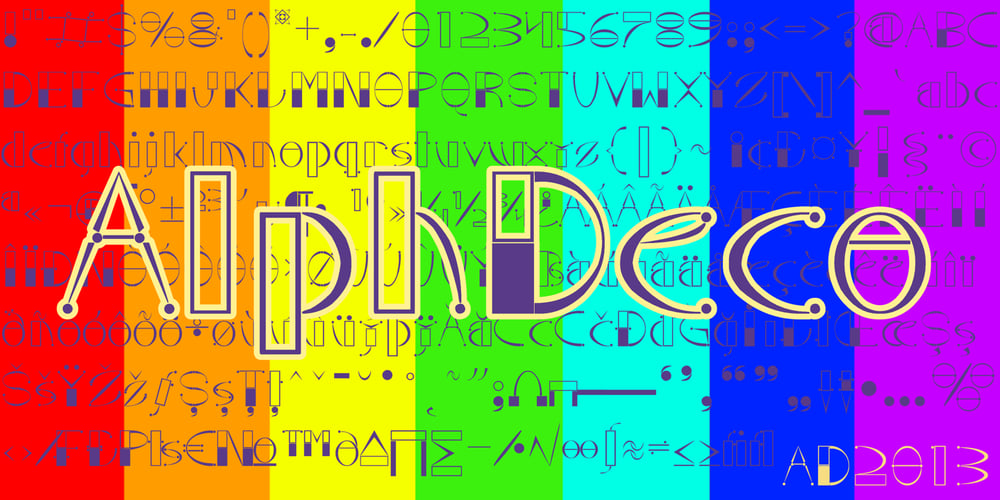
Alph Deco Font Family was designed by Heikki Morgan Hämäläinen and published by Morganismi. Alph Deco contains 1 styles and family package options. Alph Deco is an artistic font designed to satisfy devoted friends of art deco. It supports West and Central European tongues as well as Baltic, Turkish and Romanian languages.